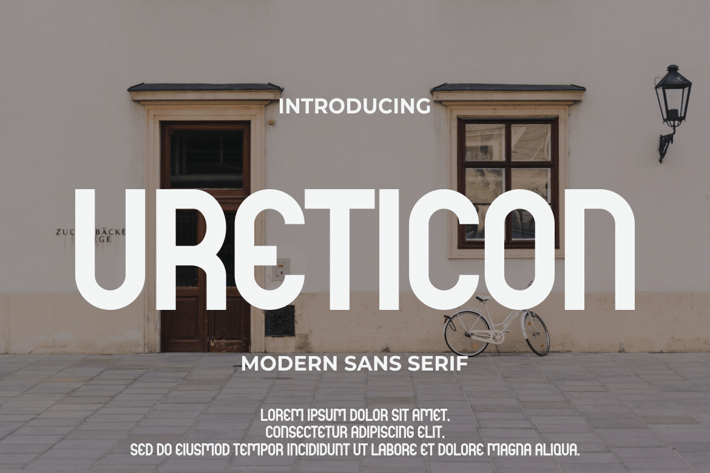
URETICON FONT
Introducing our new product URETICON FONT - Modern Font
URETICON FONT - Modern Font is a bold and authentic display font. The font is suitable for any branding project like logo, t-shirt printing, esport, and many more. outstanding in a wide range of contexts.